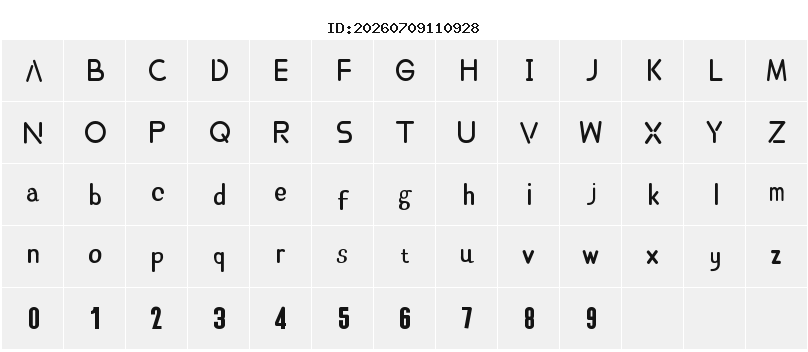
站酷小薇LOGO体 Preview
• Font Name: 站酷小薇LOGO体
• Font Style: 常规
• Font ID: 站酷小薇LOGO体
• Full Font Name: 站酷小薇LOGO体
• PostScript Name: xiaowei
• Designer: 李大卫(david 小马哥)
• Manufacturer: 上海佐兹品牌设计 李大卫作品
• Description: 是上海知名设计师李大卫作品
About 站酷小薇LOGO体.otf
站酷小薇LOGO体.otf is a modern, elegant sans-serif font designed for ultimate readability and visual harmony. Perfect for branding, headlines, web design, and print materials.